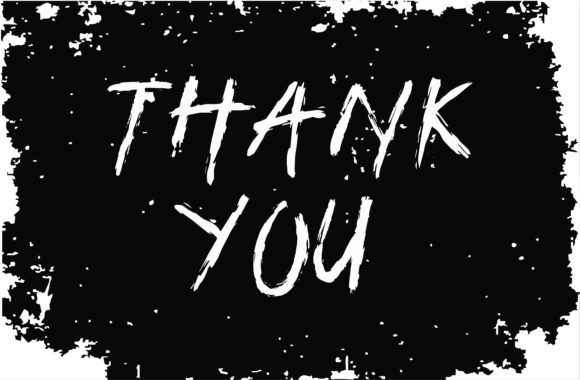
Introduction to Shouted Font
Do you remember that moment when you stumbled upon the perfect font for your creative project? It’s like finding a needle in a haystack, but instead, you get to unleash your imagination and bring your design to life. For graphic designers, finding the right font can make all the difference between a mediocre design and a showstopper.
One such font that has been making waves in the design community is the Shouted Font. This cool, rough-textured, and urban-styled display font is perfect for designs that need a bold statement. Whether you’re creating t-shirts, sportswear, logos, or advertisements, the Shouted Font is sure to grab attention and make your design stand out from the crowd.
Key Features of Shouted Font
- High-quality design resource with a unique, bold style, perfect for creative projects that require attention-grabbing typography.
- Features a transparent background, making it easy to use in various design contexts, from digital to print materials.
- Includes multiple font styles, such as regular, bold, and italic, to cater to different design needs.
- Designed with a large x-height, making it highly legible and suitable for use in various font sizes, from small to extra-large.
- Resolution-independent, ensuring crisp and clear rendering at any resolution, from low to high DPI.
Honest Review: Shouted Font
As a designer, I’m always on the lookout for high-quality design resources that can elevate my creative projects. Recently, I stumbled upon the Shouted Font, and I must say it’s been a game-changer for my recent design endeavors.
What works well with the Shouted Font is its versatility. It comes in a variety of weights and styles, making it perfect for creating striking headlines and attention-grabbing titles. The font is also available for free download, which is a definite plus for designers on a budget. The transparent background option allows for seamless integration with any design, making it a valuable asset in my design toolkit.
The Shouted Font is ideal for creating bold, eye-catching designs. It’s perfect for logos, branding materials, and even social media graphics. The font’s modern aesthetic makes it a great choice for any creative project that requires a touch of sophistication.
Pros and Cons
- ✨ Versatile and comes in various weights and styles
- ✨ Transparent background option for seamless integration
- ⚠️ Limited customization options
- ⚠️ May not be suitable for designs requiring a more subtle aesthetic
Overall, I’m thoroughly impressed with the Shouted Font. Its high-quality design and versatility make it a valuable addition to any designer’s toolkit. While it may have some limitations, the benefits far outweigh the drawbacks, making it a must-try for any designer looking to take their creative projects to the next level.
Shouted Font: A Comprehensive Guide
Introduction to Shouted Font
Shouted Font is a high-quality design resource perfect for creative projects that require a bold, attention-grabbing font. With its transparent background, it’s ideal for use in a variety of applications.
Tips for Getting the Most Out of Shouted Font
Experiment with different font sizes and colors to create a bold, eye-catching effect. Use Shouted Font in combination with other design elements to add depth and interest to your project.
Common Use Cases for Shouted Font
Shouted Font is perfect for use in headings, titles, and other text elements where a bold, attention-grabbing font is needed. It’s ideal for use in marketing materials, social media graphics, and other creative projects.